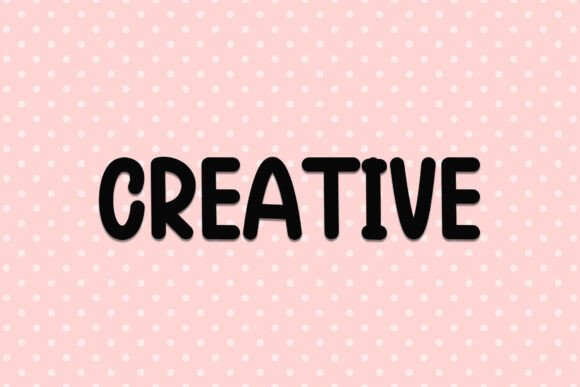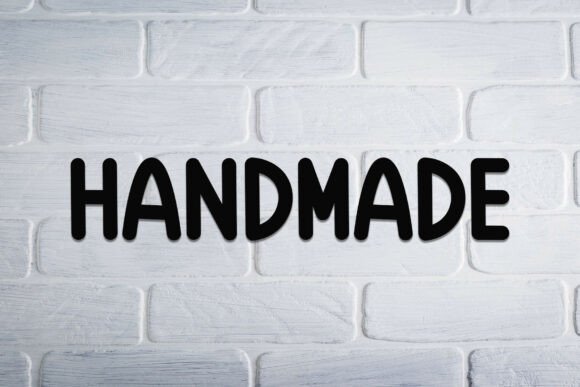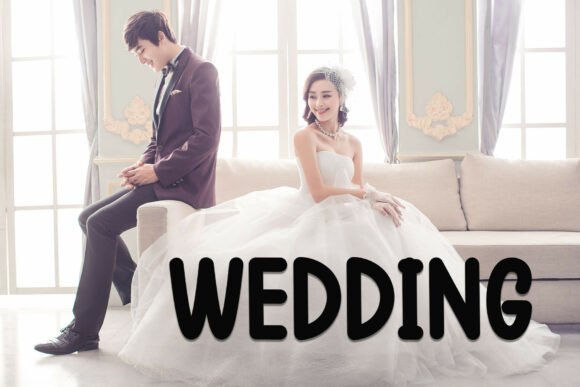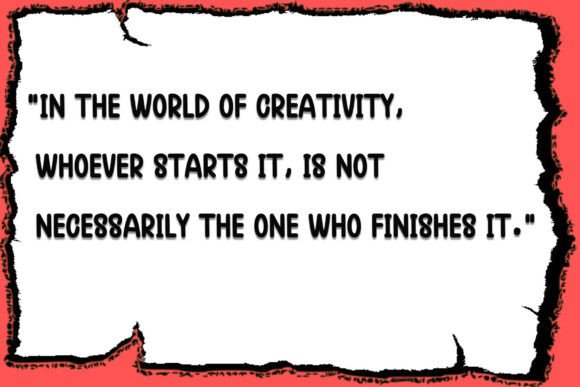
Introducing Ballpoint Signature Font: The Playful and Approachable Handwritten Font
Are you looking for a font that adds a personal touch to your designs? Look no further than the Ballpoint Signature font. This playful and approachable handwritten font is perfect for designers and crafters who want to bring a touch of whimsy to their work. In this article, we’ll explore the features and benefits of the Ballpoint Signature font, and how it can be used to elevate your designs.
What is Ballpoint Signature Font?
Ballpoint Signature font is a handwritten font that mimics the casual charm of pen-on-paper writing. Its rounded edges and bold form bring a touch of playfulness to any design, making it perfect for personal branding, packaging, educational materials, and friendly social media graphics. The font’s unique character and charm make it stand out from more traditional fonts, adding a personal touch to your designs.
Key Features of Ballpoint Signature Font
- Playful and Approachable: The Ballpoint Signature font has a playful and approachable feel, making it perfect for designs that require a personal touch.
- Rounded Edges: The font’s rounded edges give it a soft and friendly feel, making it perfect for designs that require a more approachable tone.
- Bold Form: The font’s bold form makes it easy to read, even at smaller sizes, making it perfect for a wide range of design applications.
- Handwritten Charm: The font’s handwritten charm adds a personal touch to any design, making it perfect for personal branding, packaging, and educational materials.
Benefits of Using Ballpoint Signature Font
There are many benefits to using the Ballpoint Signature font in your designs. Here are just a few:
- Personal Touch: The font’s handwritten charm adds a personal touch to any design, making it perfect for personal branding and packaging.
- Readability: The font’s bold form makes it easy to read, even at smaller sizes, making it perfect for a wide range of design applications.
- Versatility: The font’s playful and approachable feel makes it perfect for a wide range of design applications, from educational materials to friendly social media graphics.
- Uniqueness: The font’s unique character and charm make it stand out from more traditional fonts, adding a personal touch to your designs.
Design Applications for Ballpoint Signature Font
The Ballpoint Signature font is perfect for a wide range of design applications, including:
- Personal Branding: The font’s handwritten charm and playful feel make it perfect for personal branding, adding a personal touch to business cards, logos, and other marketing materials.
- Packaging: The font’s bold form and playful feel make it perfect for packaging design, adding a touch of whimsy to product labels and packaging materials.
- Educational Materials: The font’s clear and readable form make it perfect for educational materials, such as textbooks, workbooks, and educational posters.
- Social Media Graphics: The font’s playful and approachable feel make it perfect for friendly social media graphics, such as blog posts, social media posts, and email newsletters.
Tips for Using Ballpoint Signature Font
Here are a few tips for using the Ballpoint Signature font in your designs:
- Use it sparingly: The font’s playful and approachable feel make it perfect for adding a personal touch to your designs, but use it sparingly to avoid overwhelming the design.
- Pair it with other fonts: The font’s bold form makes it perfect for pairing with other fonts, adding contrast and visual interest to your designs.
- Experiment with colors: The font’s playful and approachable feel make it perfect for experimenting with different colors and color combinations.
The Ballpoint Signature font is a playful and approachable handwritten font that adds a personal touch to any design. Its rounded edges and bold form bring a touch of whimsy while maintaining readability, making it perfect for personal branding, packaging, educational materials, and friendly social media graphics. With its unique character and charm, the Ballpoint Signature font is sure to elevate your designs and add a personal touch to your work.